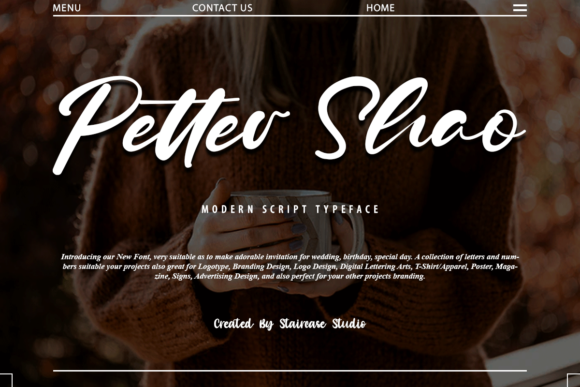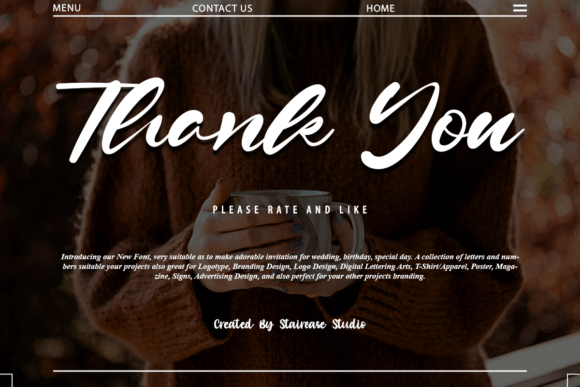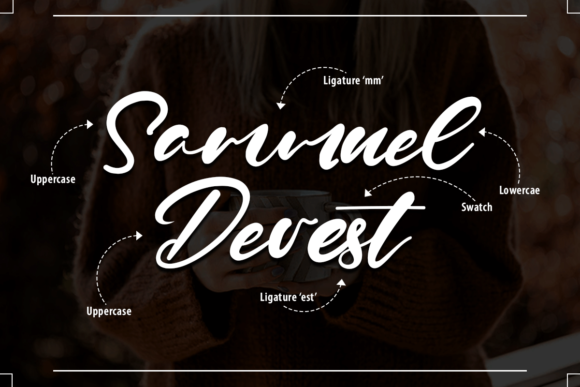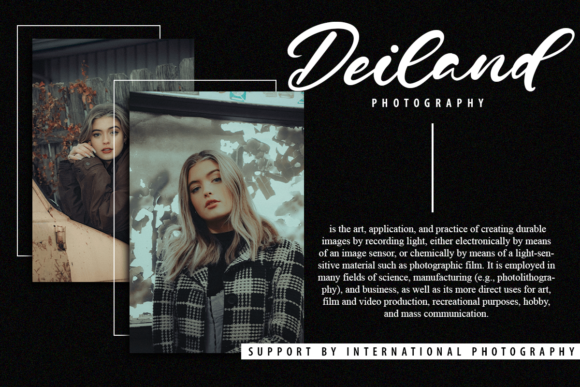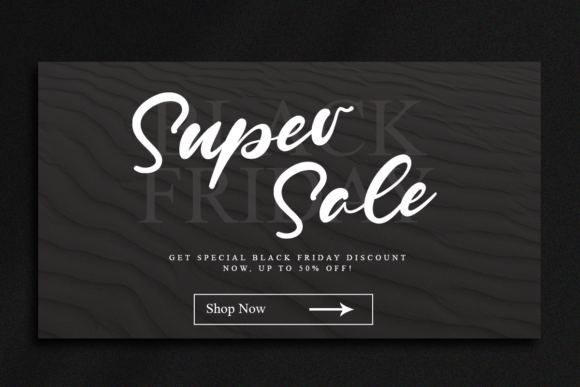
About Petter Shao Font
Petter Shao is a modern script typeface perfect for logotypes, branding design, logo design, digital lettering arts, T-shirt/apparel, posters, magazines, signs, advertising design, and many more. Add this beautiful font to your most creative designs, and watch how it captures everyone’s attention!